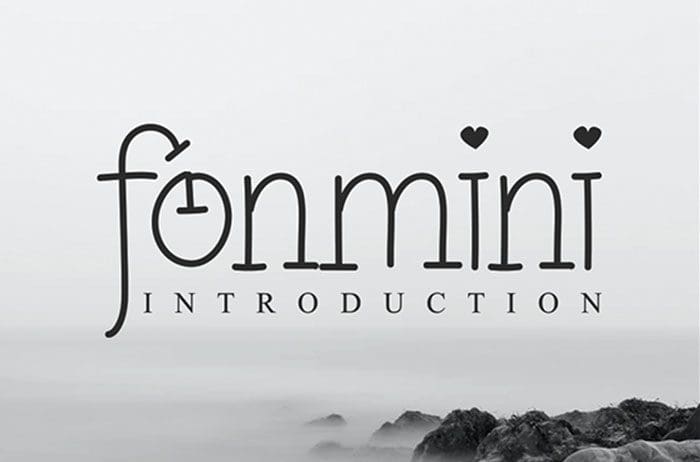
Free Fonmini Serif Font
Fonmini Serif Font
Free Fonmini serif font embodies fun, quirkiness and authenticity. This enchanting display font will turn any creative idea into a true standout. Designed this font by Andika Studio. You can also search more freeĀ Serif Fonts.